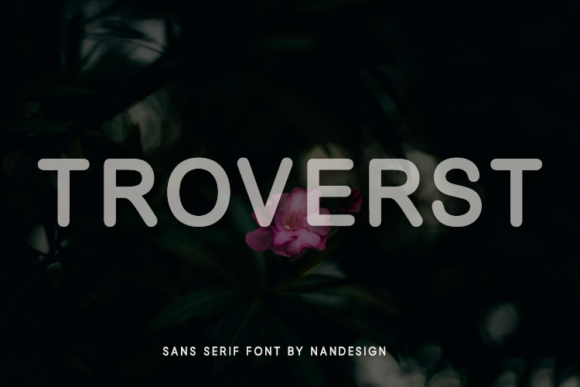
Introducing Troverst Font: The Elegant Rounded Sans Serif for Modern Designs
In the world of typography, fonts play a crucial role in making or breaking a design. A well-chosen font can elevate the visual appeal of a project, making it more engaging and effective. For designers seeking an elegant and versatile font, Troverst is an excellent choice. This article will explore the features and benefits of Troverst, an elegant rounded sans serif font that complements any design need with its perfectly balanced mix of smooth and sharp elements.
What is Troverst Font?
Troverst is a modern sans serif font designed with elegance and versatility in mind. Its rounded edges and smooth curves give it a friendly and approachable feel, making it perfect for a wide range of design applications. The font’s design is characterized by its perfectly balanced mix of smooth and sharp elements, creating a unique and visually appealing aesthetic.
Key Features of Troverst Font
- Elegant Rounded Sans Serif: Troverst boasts a sleek and sophisticated design with rounded edges, making it ideal for designs that require a touch of elegance.
- Perfectly Balanced: The font’s design strikes a perfect balance between smooth and sharp elements, creating a visually appealing and harmonious aesthetic.
- Versatile: Troverst is suitable for a wide range of design applications, from branding and advertising to digital media and print materials.
- Legible: The font’s clear and simple design ensures excellent legibility, making it easy to read in various sizes and resolutions.
Benefits of Using Troverst Font
Using Troverst font in your designs offers several benefits. Its elegant and modern design makes it perfect for:
- Branding: Create a lasting impression with Troverst’s unique and memorable design, perfect for logos, business cards, and brand guidelines.
- Digital Media: Enhance your digital content with Troverst’s clean and legible design, suitable for websites, social media, and mobile applications.
- Print Materials: Add a touch of elegance to your print materials, such as brochures, flyers, and posters, with Troverst’s versatile design.
Design Applications of Troverst Font
Troverst font can be used in various design applications, including:
- Logos and Branding: Create a unique and memorable logo with Troverst’s elegant and modern design.
- Web Design: Enhance your website’s typography with Troverst’s clean and legible design, perfect for headings, body text, and captions.
- Advertising: Make your advertisements stand out with Troverst’s bold and attention-grabbing design, suitable for print and digital ads.
- Packaging: Add a touch of elegance to your product packaging with Troverst’s versatile design, perfect for labels, tags, and instructions.
How to Use Troverst Font Effectively
In conclusion, Troverst font is an excellent choice for designers seeking an elegant and versatile sans serif font. Its perfectly balanced mix of smooth and sharp elements makes it suitable for a wide range of design applications. By understanding the features and benefits of Troverst, designers can create visually appealing and effective designs that elevate their projects to the next level.
Frequently Asked Questions (FAQs)
- What is Troverst font? Troverst is an elegant rounded sans serif font designed for modern designs.
- What are the key features of Troverst font? Troverst boasts a sleek and sophisticated design with rounded edges, a perfectly balanced mix of smooth and sharp elements, and excellent legibility.
- What design applications is Troverst suitable for? Troverst is suitable for branding, digital media, print materials, logos, web design, advertising, and packaging.